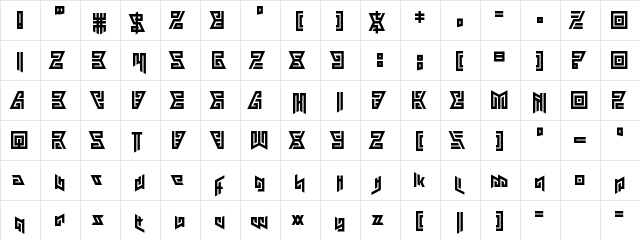
Aztechno Regular
Design Context for Aztechno Typeface
Aztechno has a distinctly futuristic character, with geometric precision and clean angles that feel at home in technology, gaming, and sci-fi contexts.
Pro Tip: Try Aztechno with generous letter-spacing in UI labels and navigation — the geometric forms benefit from room to breathe.